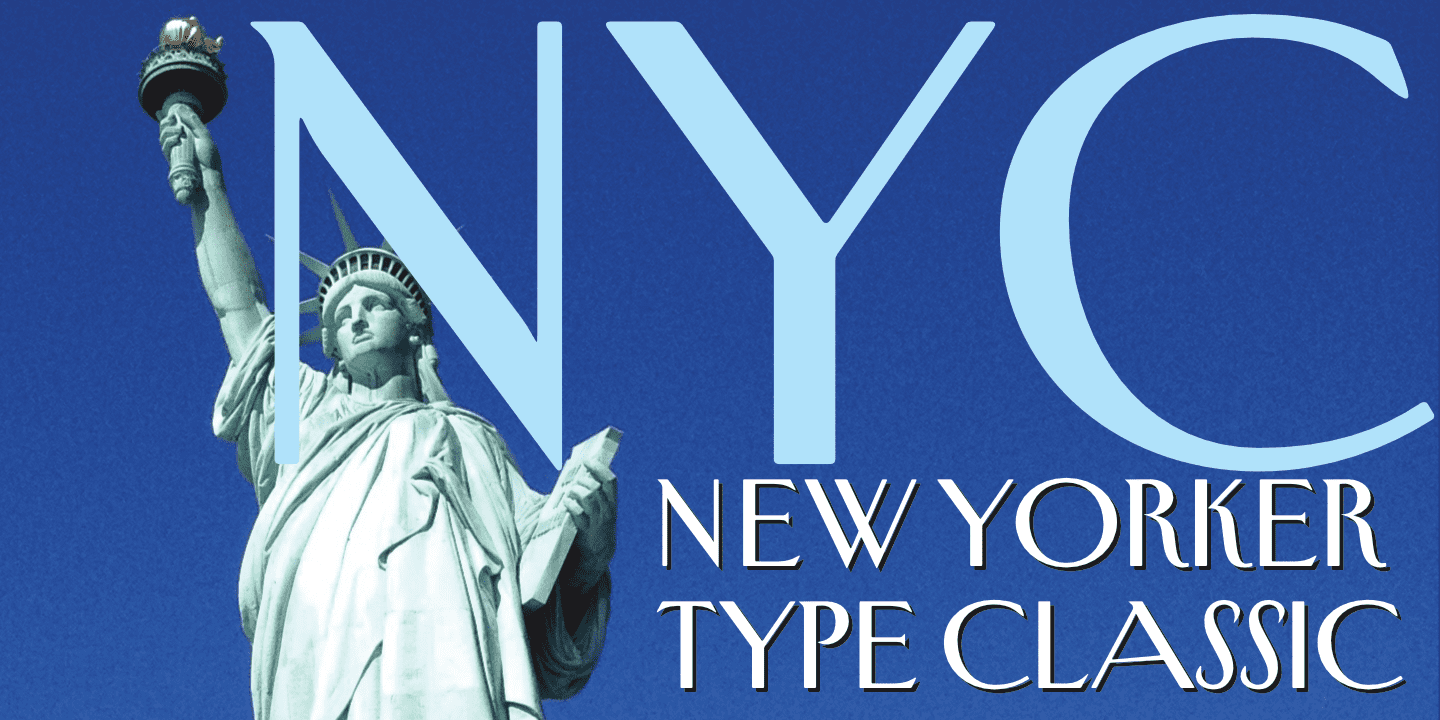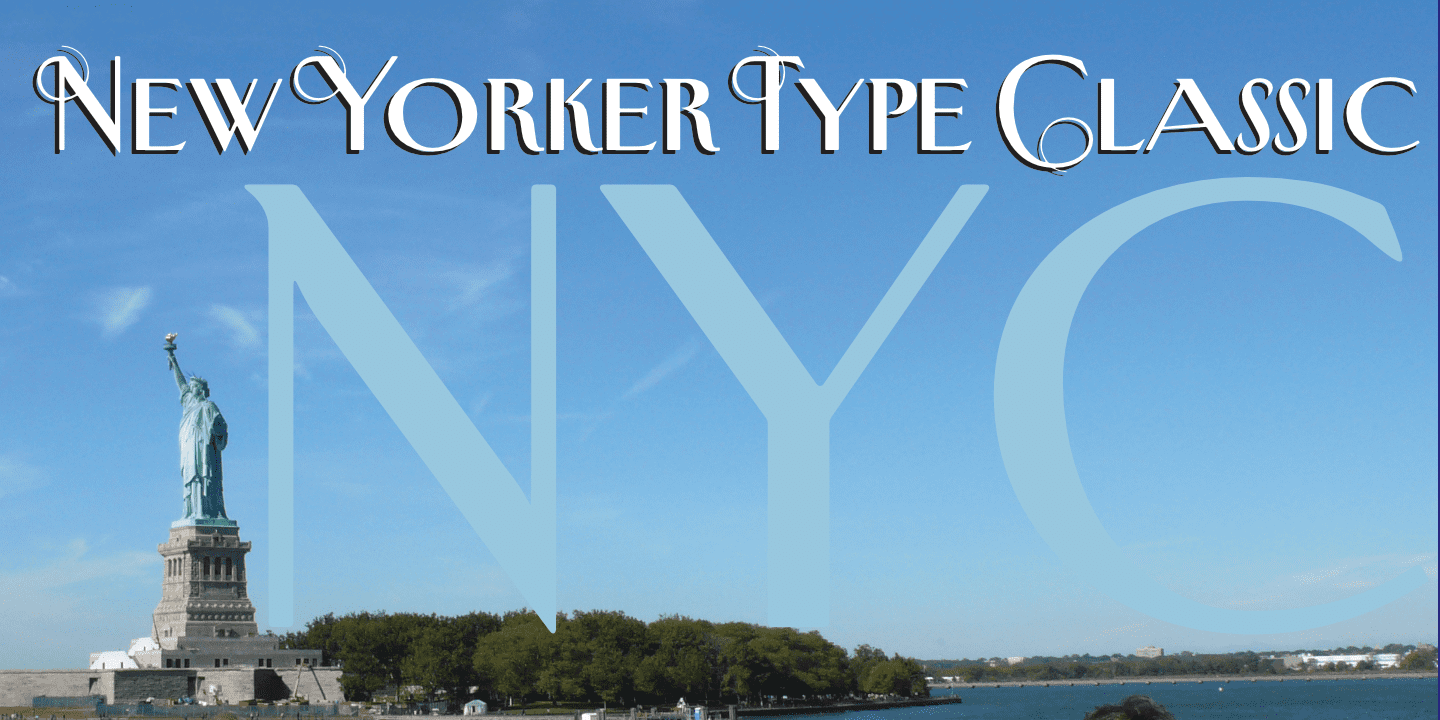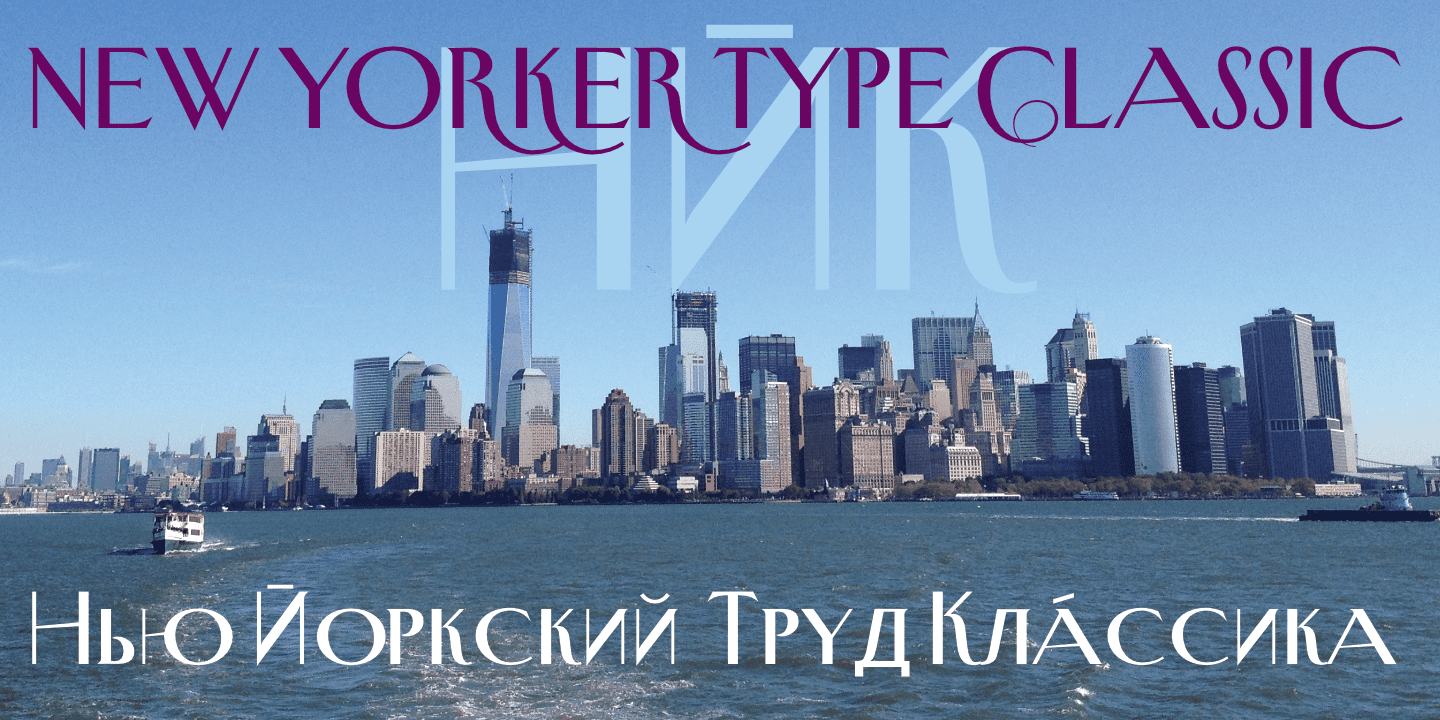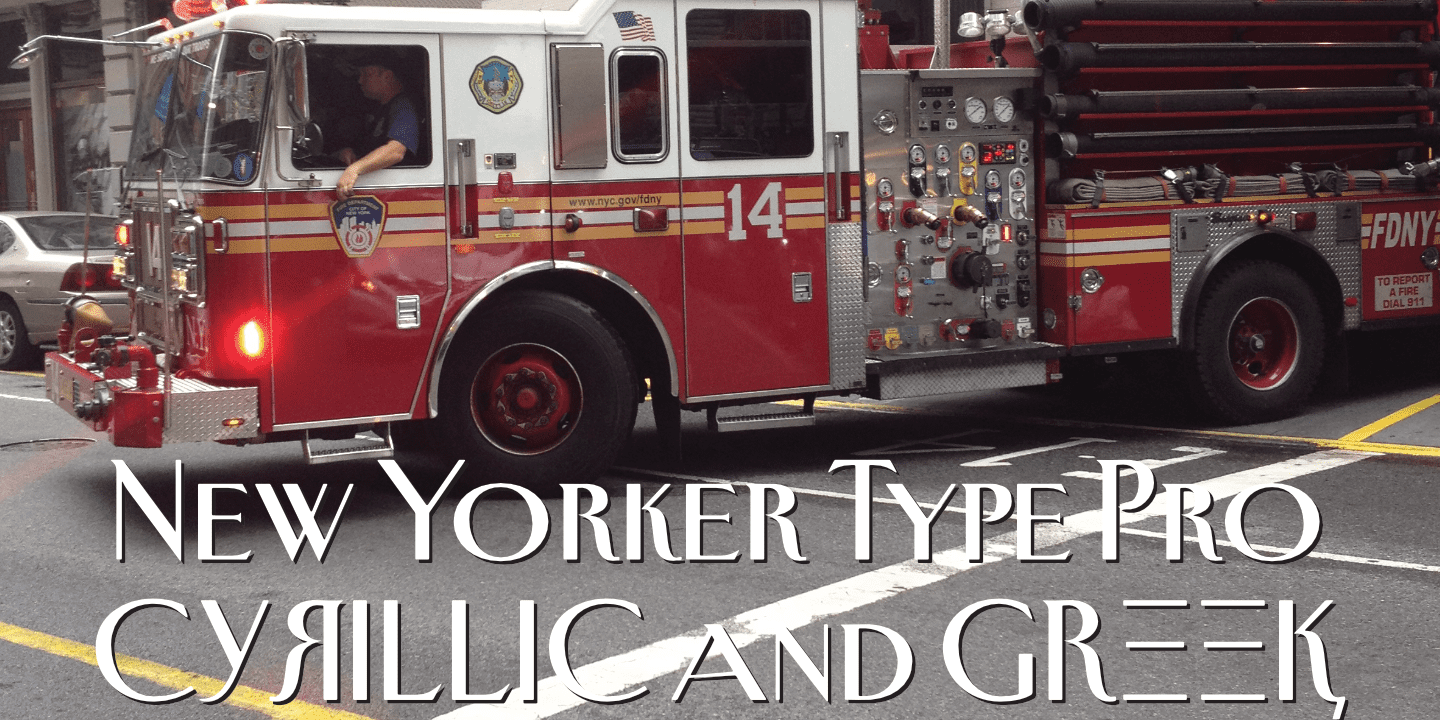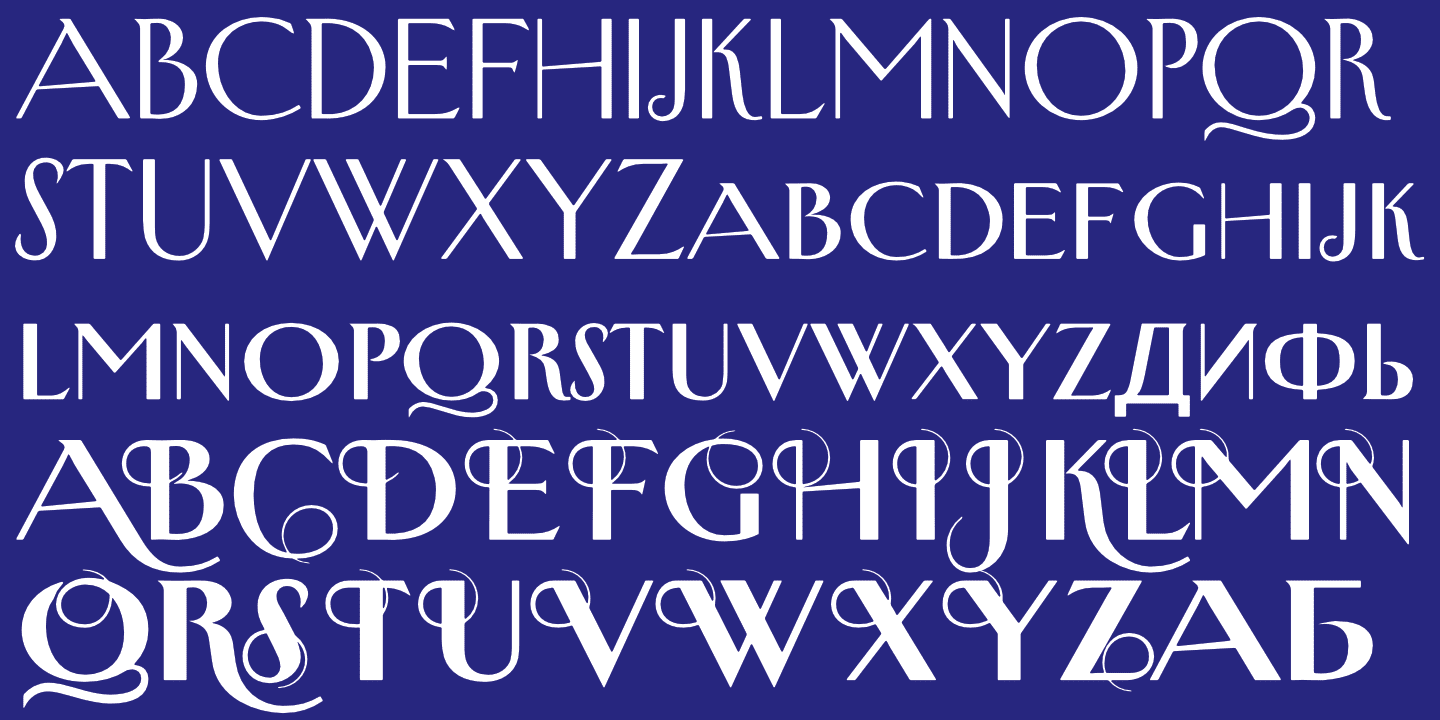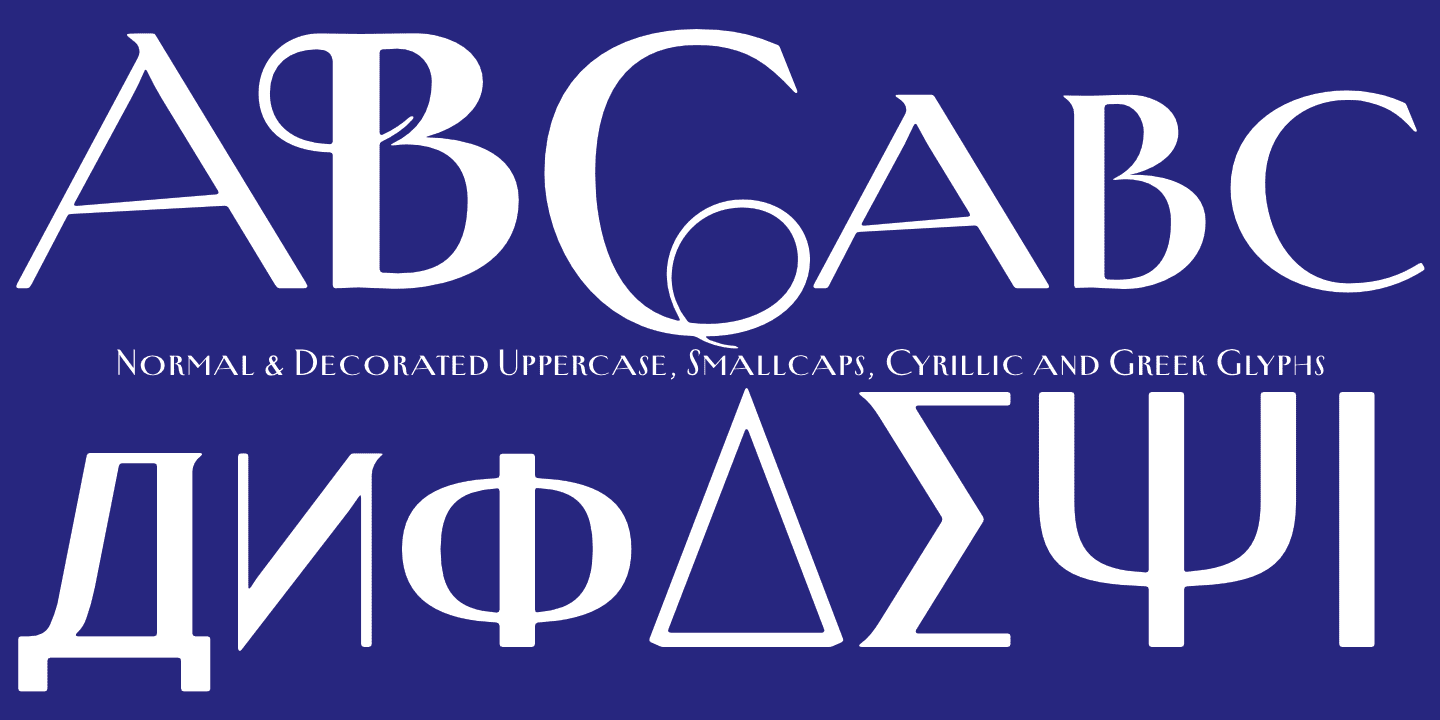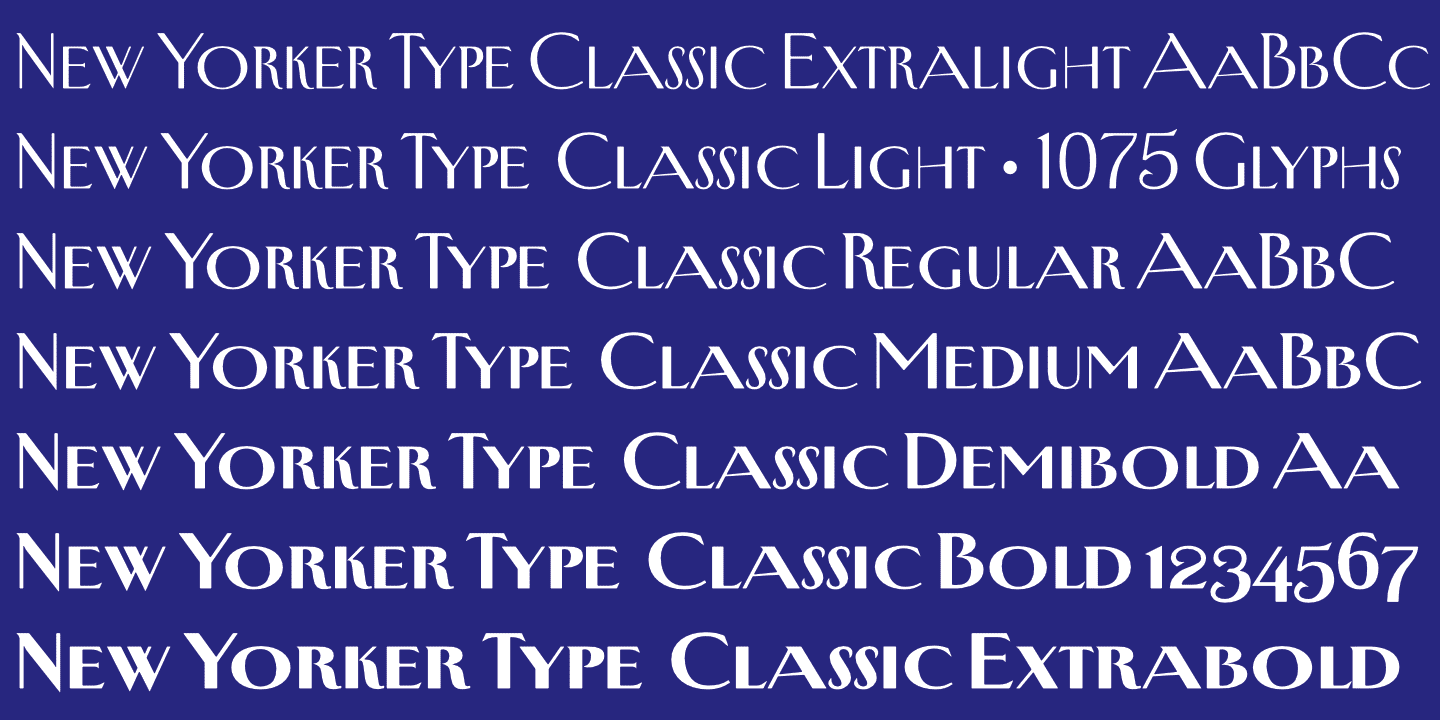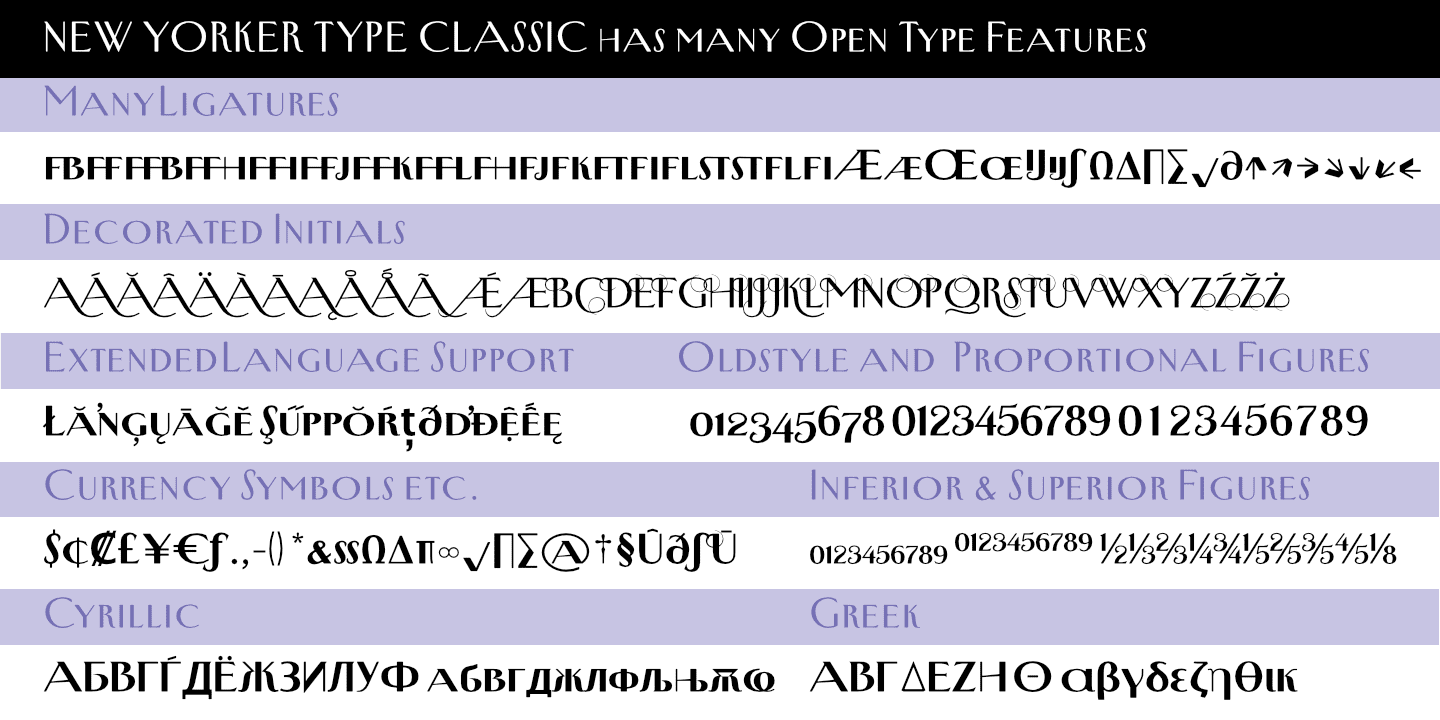
New Yorker Type Classic Family (7 fonts)
In the next step I repaired some of the mistakes that I made more than thirty years ago.
Now on the eve of 2020 I gave the font a complete overhaul and added a set of Swash Initials, Cyrillic and Greek glyphs and many ligatures. The font now has 1075 glyphs and is all set for most latin writing systems. On top of that I made two versions, a Classic one with rounded corners and a pointed Pro version for a more up-to-date look. Take your pick.
Yours sincerely, honoring Rea Irvin a great type- and magazine-designer, Gert Wiescher